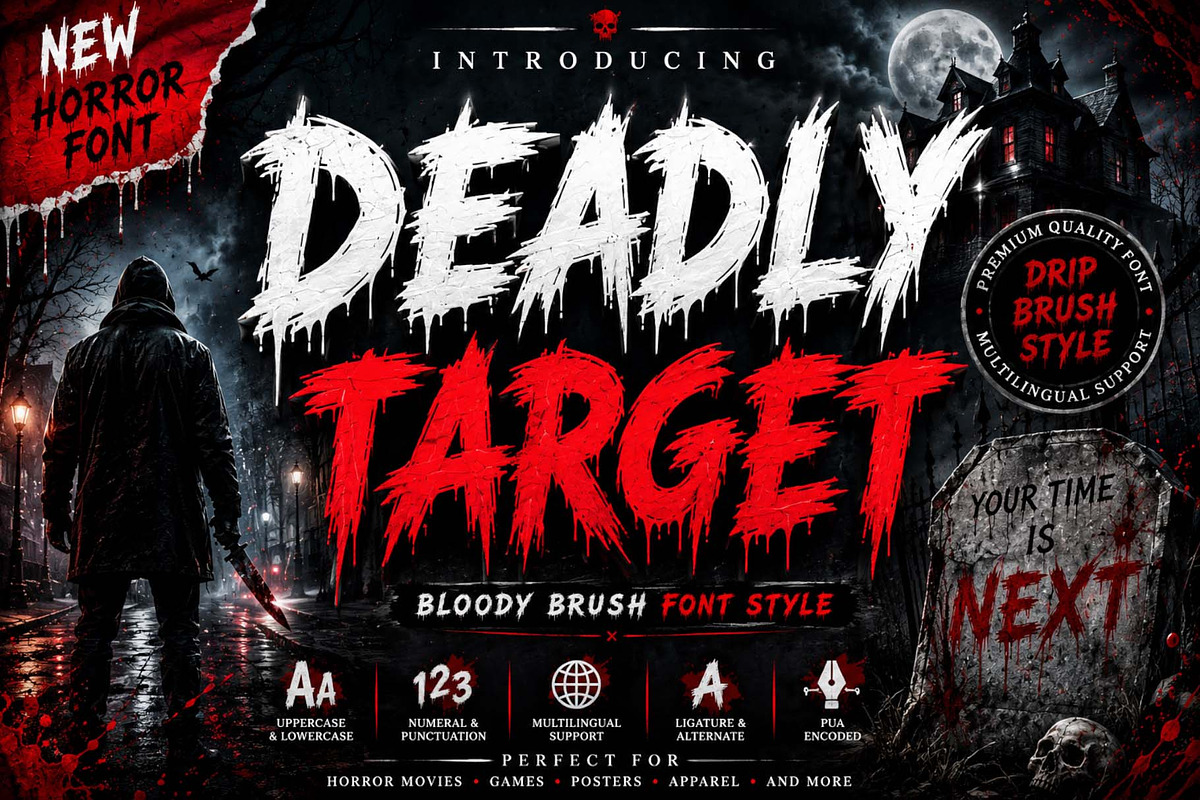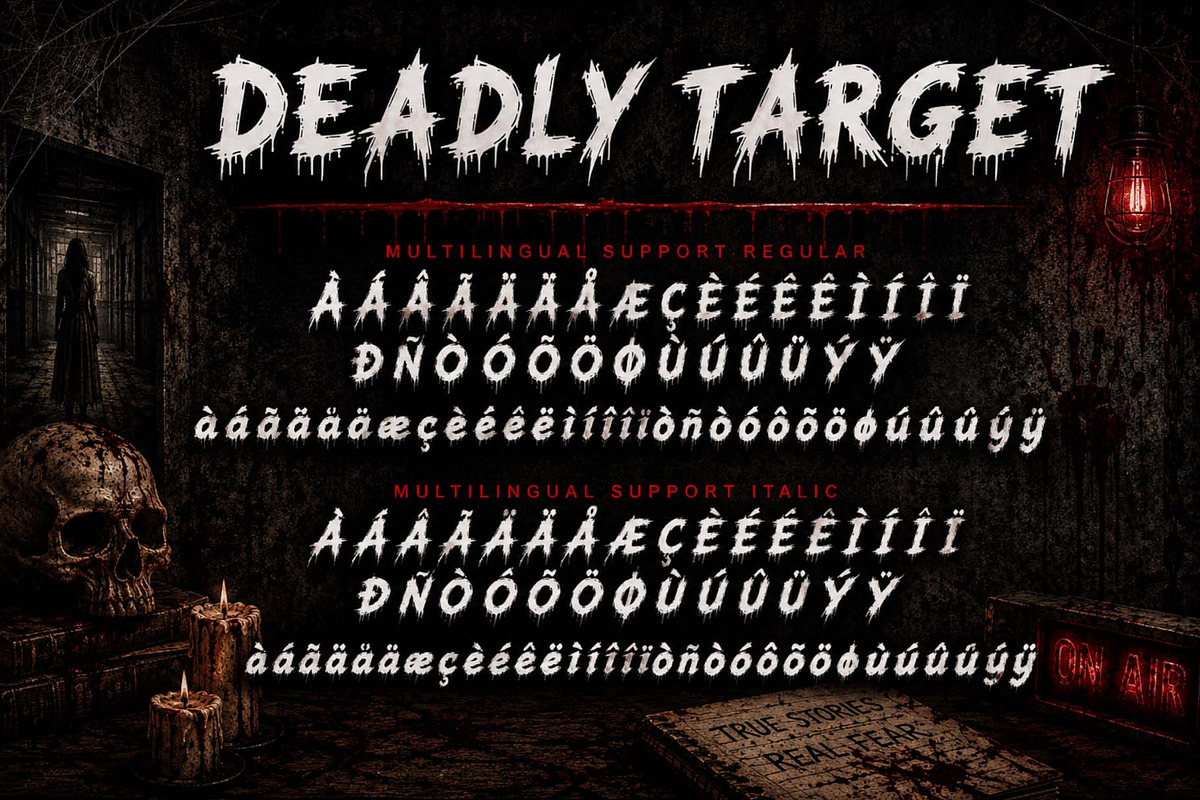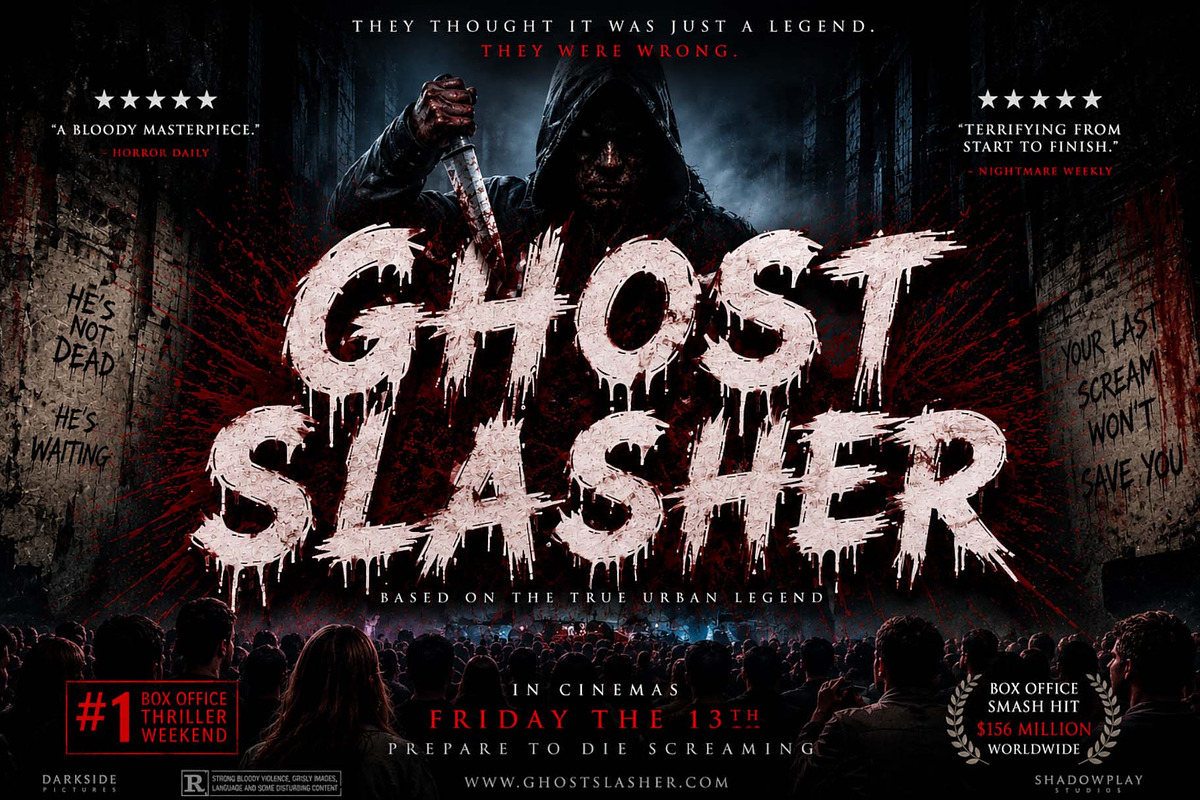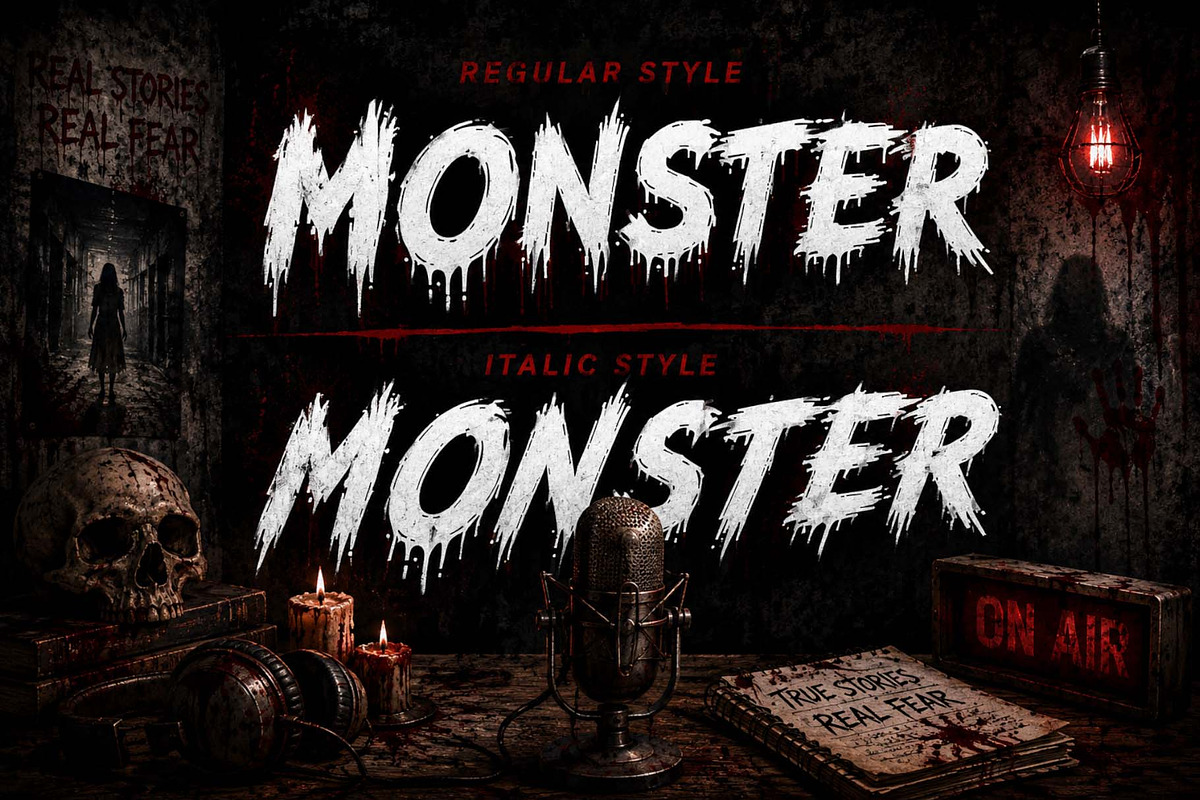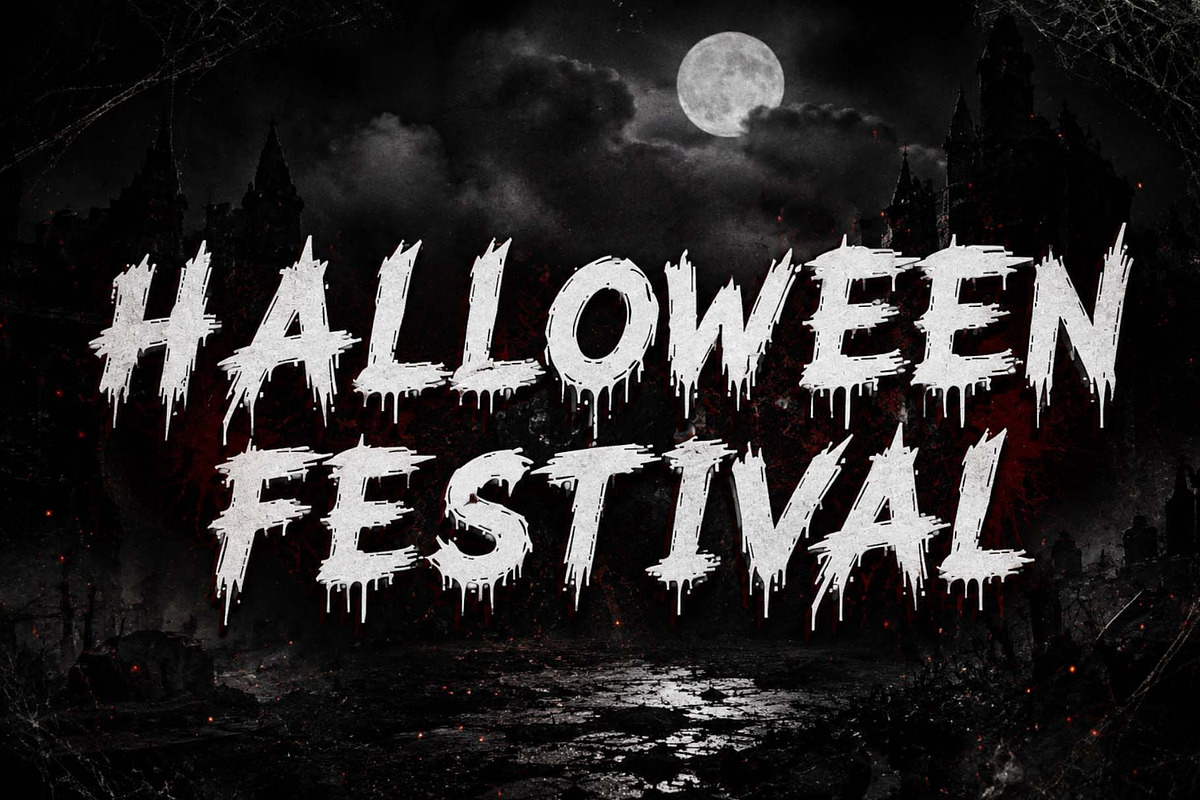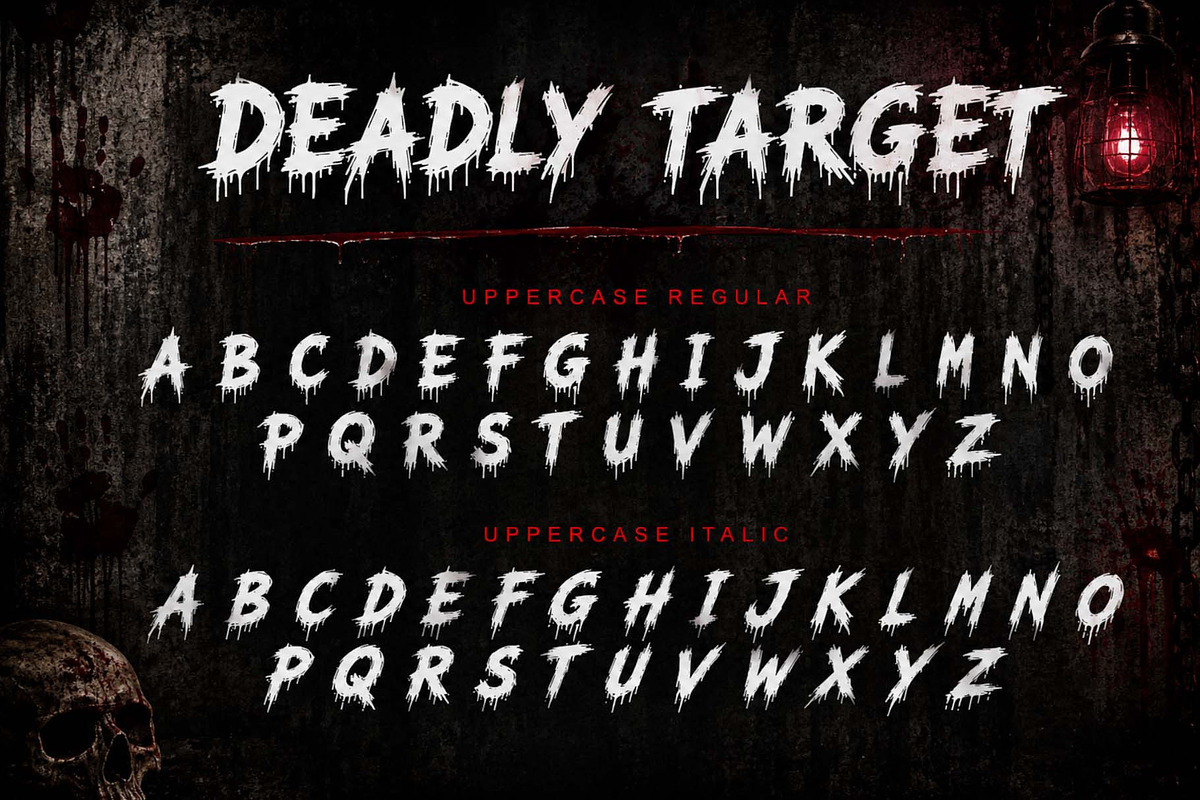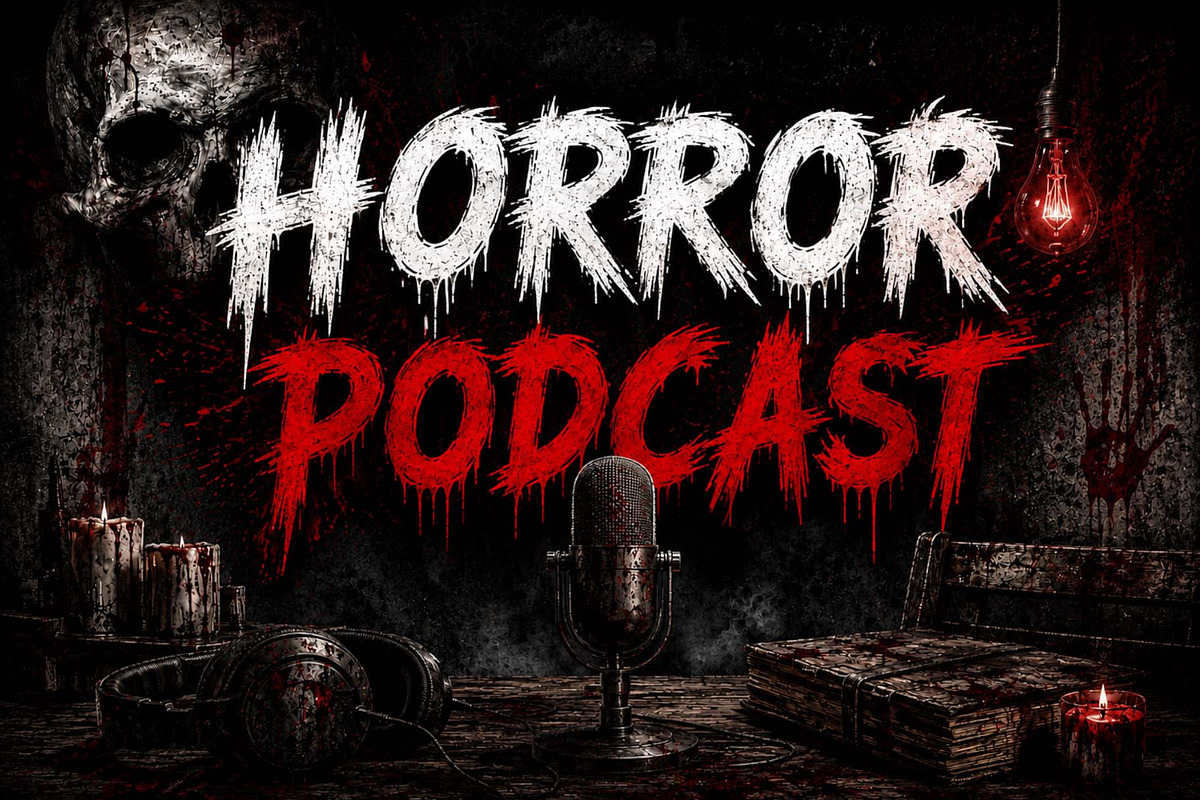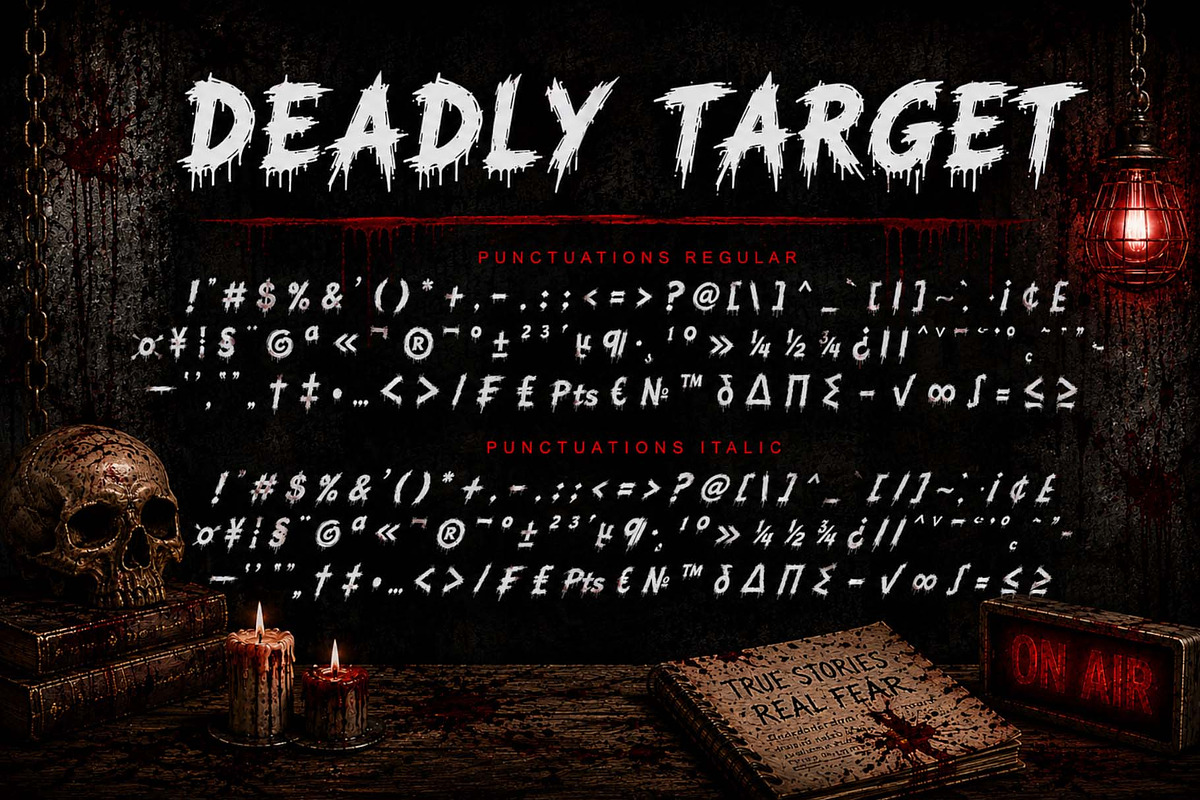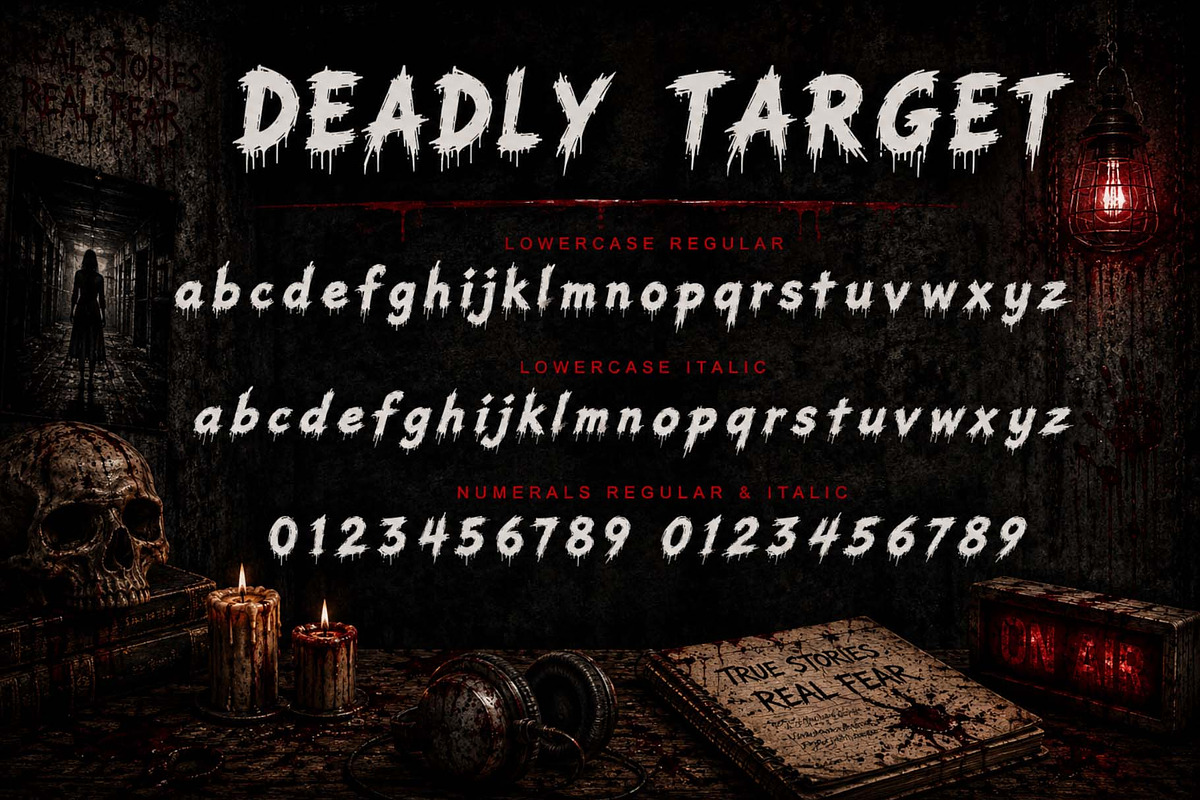
Deadly Target
Deadly Target is a terrifying horror brush font with sharp, blood-dripping strokes and a rough, hand-drawn style that brings a sense of dread to every design. Perfect for horror movie titles, Halloween projects, game covers, posters, apparel, branding, and spooky-themed graphics. Featuring uppercase and lowercase letters, numbers, punctuation, multilingual support, ligatures, alternates, and PUA encoding, this font gives you everything you need to create terrifying and unforgettable typography.